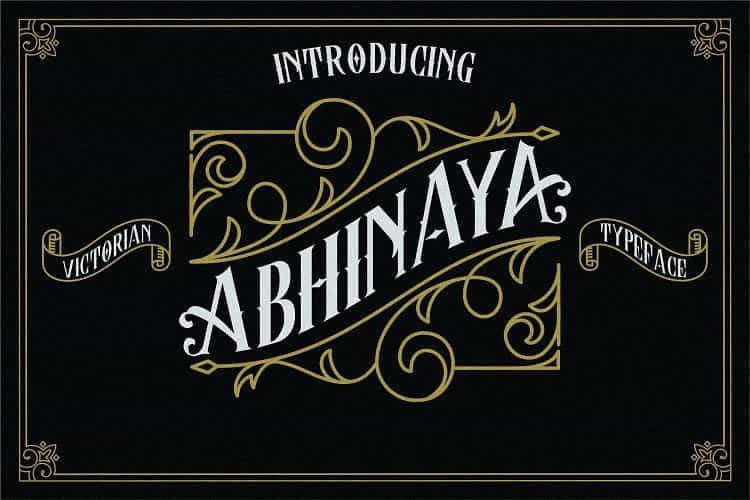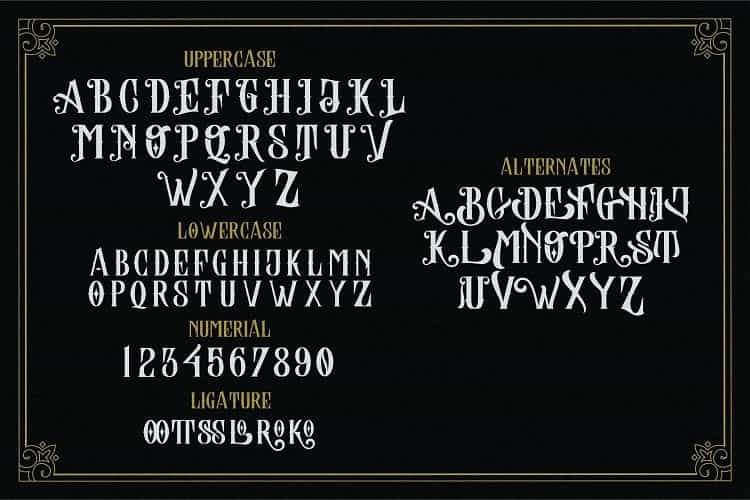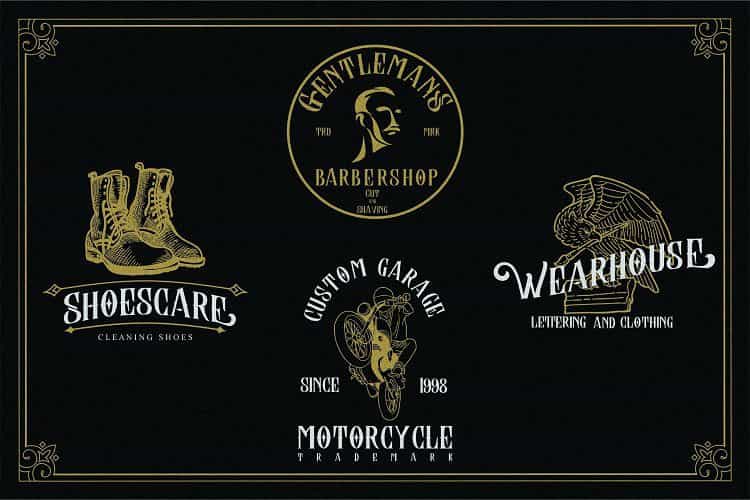
Abhinaya Typeface
Introducing Abhinaya Font. It is the designed and the artwork of the main developer Twicolabs Fontdation. Abhinaya Typeface is hand drawn font, particularly inspired by posters which used to displayed outside old cinemas, theaters and art galleries. has a lot of uppercase, lowercase, numerals, punctuations and different forms on each characters that make them looked so amazing! Besides, the best thing is that the fonts come with wide range of opentype alternates, different ligatures and also some additional swash which are very useful for designers.